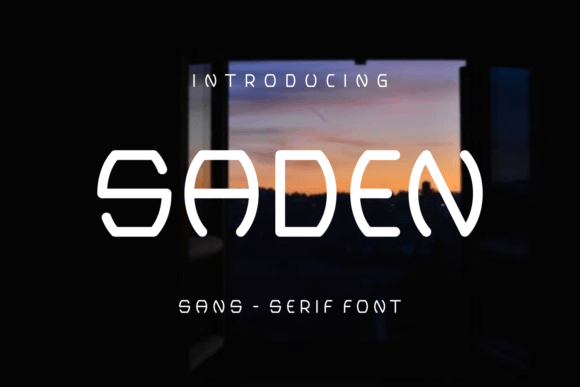
Introducing Saden Font, the captivating display font that will transform your creations into masterpieces. With its unmistakable charm and versatility, Saden is the perfect choice for a wide range of eye-catching designs. Whether you're crafting stunning business cards that leave a lasting impression, or designing captivating posters that grab attention from across the room, Saden Font is your go-to font for delivering impactful messages with flair.
At its core, Saden Font exudes a playful and energetic spirit that instantly captivates your audience. Its unique letterforms dance playfully on the page, creating a dynamic and engaging visual experience. Whether it's a playful invitation to a special event or an informative brochure that educates and inspires, Saden Font adds a touch of whimsy and delight to any project.
But don't let its playful nature fool you - Saden Font is also a powerhouse of versatility. Its carefully crafted characters lend themselves effortlessly to a multitude of design styles, from classic and elegant to modern and edgy. Whether you're creating sleek and sophisticated business documents or vibrant and eye-catching social media graphics, Saden Font seamlessly adapts to your vision, ensuring your message always shines through with clarity and impact.